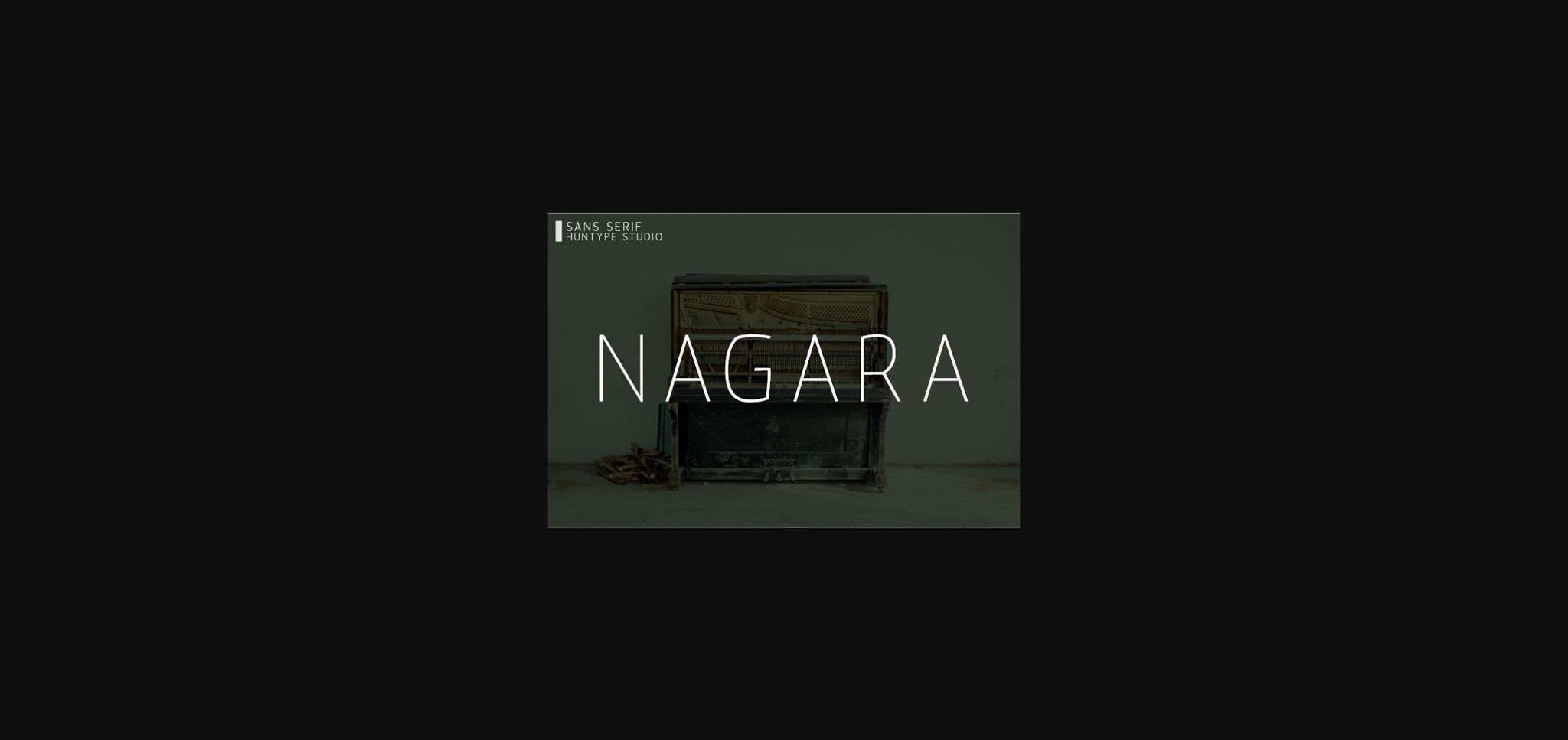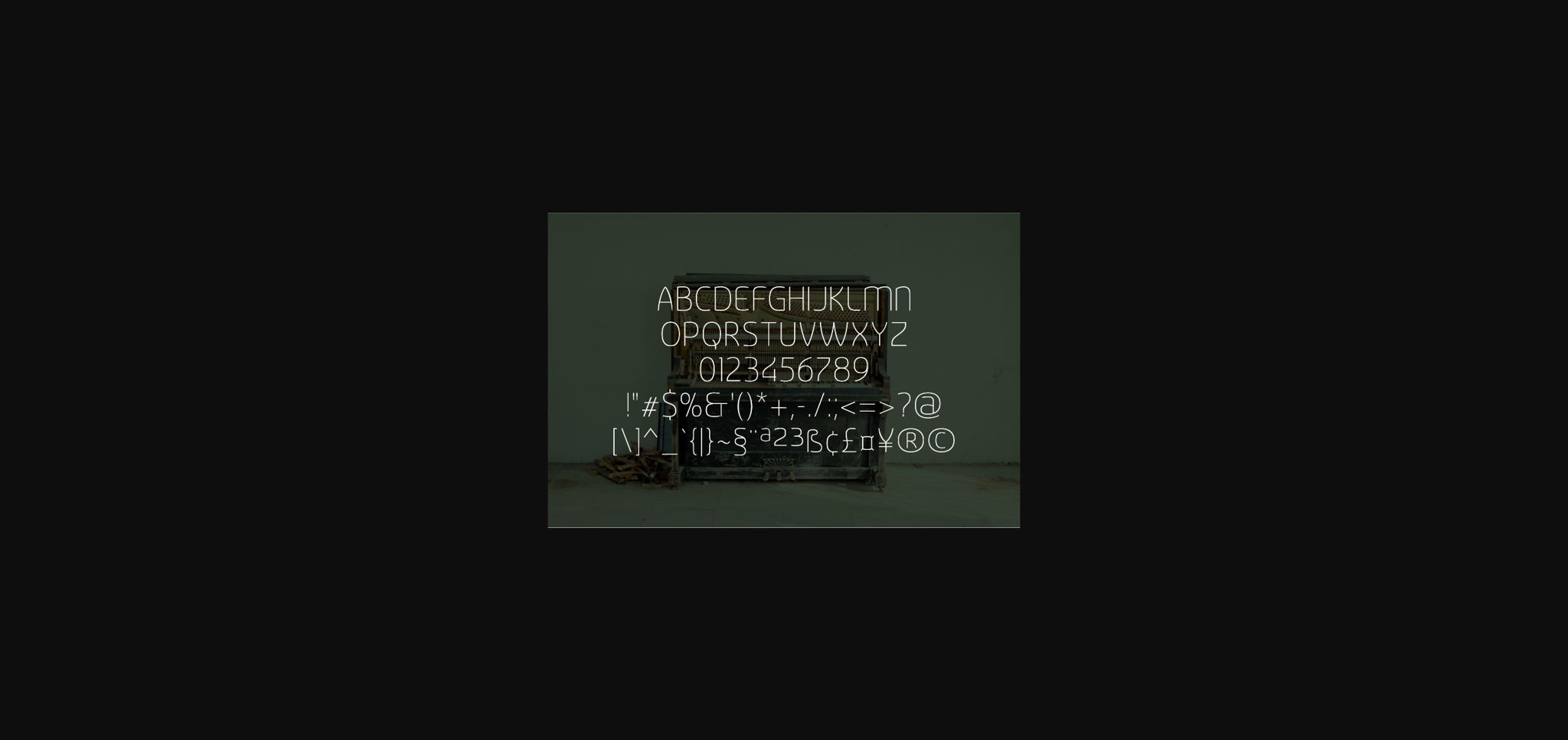
Nagara Font
About Nagara Font
Nagara is a distinct, elegant sans serif font that blends traditional influences into a contemporary aesthetic. Its well balanced Latin details contain distinctive contrasts. Use this font to achieve an exquisite, yet subtle look and maximum versatility.